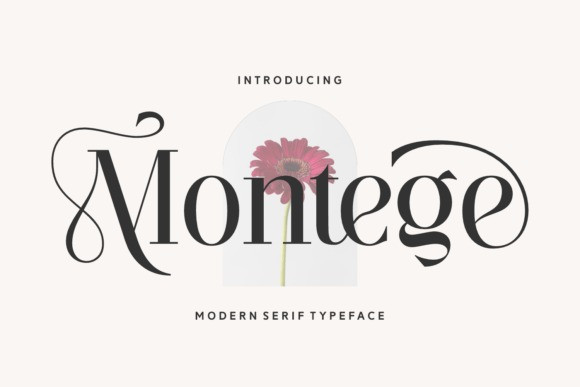
Montege Font
Montege Font is a sophisticated and modern serif font designed to bring an air of luxury, exclusivity, and timeless elegance to your creative projects. Blending classic serif structures with beautiful, fluid ligatures, this versatile typeface effortlessly bridges the gap between traditional heritage and high-fashion modernity. Its clean lines and unique stylistic alternates infuse a feminine, high-end aesthetic into every layout, making it the ultimate tool for designers looking to create a striking, bespoke visual identity.
Engineered for maximum versatility, Montege is the perfect choice for an array of editorial and branding endeavors. It shines brilliantly in luxury packaging, skincare branding, fashion magazine layouts, and high-end logos, while remaining gracefully suited for elegant wedding invitations and curated social media content. Whether you are designing a large-scale poster, a premium T-shirt, or a sleek digital banner, Montege delivers unparalleled sophistication that instantly elevates your typography from ordinary to extraordinary.